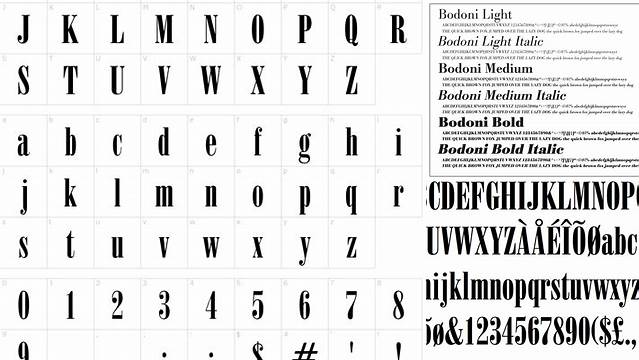
What Makes Bodoni Poster Std Compressed Font So Special?
Alright, guys, let's talk about why Bodoni Poster Std Compressed is such a big deal. This font isn't just another typeface; it's a statement. It's a bold proclamation of style, grace, and a nod to the rich history of typography. Designed with a compressed form, it's a member of the Bodoni family, which was created by Giambattista Bodoni, an Italian typographer who lived in the late 18th and early 19th centuries. Bodoni's work was all about clean lines, high contrast, and a certain flair that screamed luxury and refinement. This particular style is known for its distinct characteristics, making it a favorite among designers for various applications. The compressed version is fantastic for fitting more text into a smaller space without compromising readability, especially in headings or titles.
The defining features of Bodoni Poster Std Compressed are its high contrast between thick and thin strokes, its vertical stress, and its sharp, clean serifs. This combination gives it a formal and elegant appearance, perfect for projects where you want to convey a sense of authority, class, or high-end quality. The compressed nature of the font makes it ideal for headlines, posters, and any design where you want to grab attention quickly. It's a versatile font, too, because it works well in both print and digital formats. This means you can use it in anything from magazine layouts to website headers. Its legibility, even in compressed forms, makes it a reliable choice for designers. Bodoni Poster Std Compressed is more than just a font; it's a piece of art. Using this font will make your design stand out.
In addition to its aesthetic qualities, Bodoni Poster Std Compressed also brings a sense of heritage and prestige. It's been used by countless brands and designers over the years, solidifying its place as a timeless classic. Therefore, it's not only a visually appealing choice, but also a smart one, as it adds a layer of trust and familiarity to your designs. This is particularly true if you're working on projects targeting a discerning audience. Incorporating Bodoni Poster Std Compressed can instantly elevate the perceived value of your work. Plus, because it is a standard font, it is widely supported, which means you shouldn't have any compatibility issues, making your design process smooth and efficient.
How to Use Bodoni Poster Std Compressed Font Effectively
Now that you have the Bodoni Poster Std Compressed font in your arsenal, let's talk about how to make the most of it. Like any powerful tool, this font is most effective when used strategically. I'll share some tips to help you unlock its full potential!
First off, remember its elegant and formal nature. Bodoni Poster Std Compressed is not your go-to font for everything. It's best suited for projects where you want to create a sense of sophistication, luxury, or authority. Think high-end brands, fashion magazines, or projects that require a touch of classic elegance. This font excels in display settings like headlines, titles, and short blocks of text where you want to capture immediate attention. In body text, it can be used in small doses to add emphasis or create visual breaks, but be mindful of its contrast, which can make it a bit difficult to read in extended blocks.
Next, consider the context of your design. Pair Bodoni Poster Std Compressed with complimentary fonts to create a balanced design. Combine it with a sans-serif font for body text. This creates a dynamic contrast that makes the design more visually interesting and easier to read. Remember that, if the font's already compressed, using it in small sizes may impact readability. It is ideal to keep it in large, attention-grabbing settings. Furthermore, experiment with different font weights and sizes to find the perfect balance for your project. Bodoni Poster Std Compressed comes in different weights, ranging from light to bold, each of which brings a unique feel to the design. This can give you several options to play around with. The different weights will allow you to adjust the contrast and emphasis within your designs.